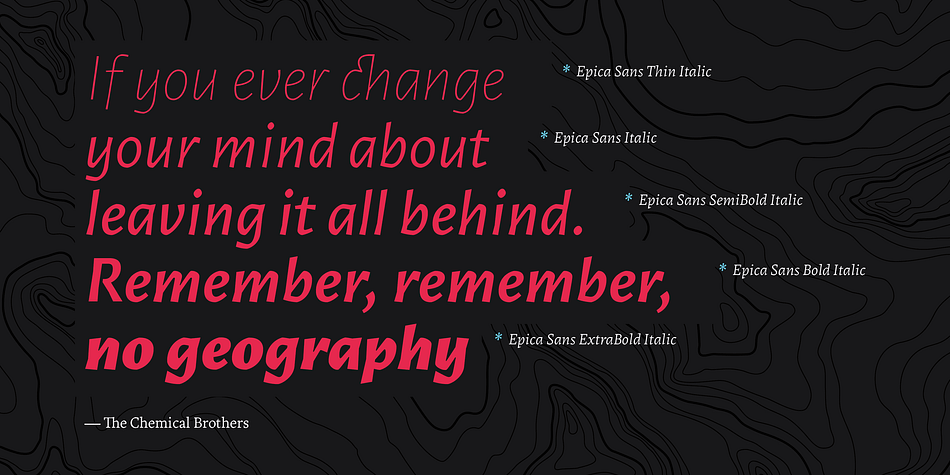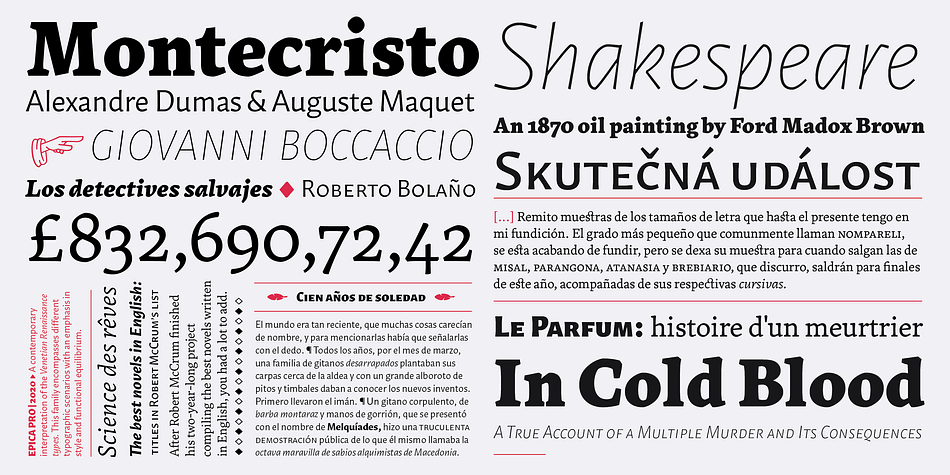
Epica Pro
Epica Pro is a sans serif and serif font family. This typeface has twenty-six styles and was published by Sudtipos.
Epica is a contemporary interpretation of the Venetian Renaissance types. A humanist type family with a contemporary design. This family encompasses different typographic scenarios with emphasis in style and functional equilibrium. Its letterforms show the visual richness of Epica that includes some calligraphic reminiscences perfectly legible in small and display sizes. Its strong personality makes it distinguish, because it perfectly combines the elegance of antique typographies and the forcefulness of contemporary ones.
This family has been designed in two different moments. Epica Serif, which have a more classical design, was finished 5 years ago in its first version. The first sketches were drew 8 years ago during the Master of Type Design at the University of Buenos Aires. Through the years was re design in several times to the point of reaching its current version. On the other hand, Epica Sans was completed in 2020 and is the counterpart of Epica Serif. A complementary system designed to enrich the serif version and give new options for hierarchy and composition. This is a versatile type family perfectly fit for books, editorial, and usage in print and on screens. It possesses great legibility in body texts, which makes it ideal for extended reading and supports a variety of languages.